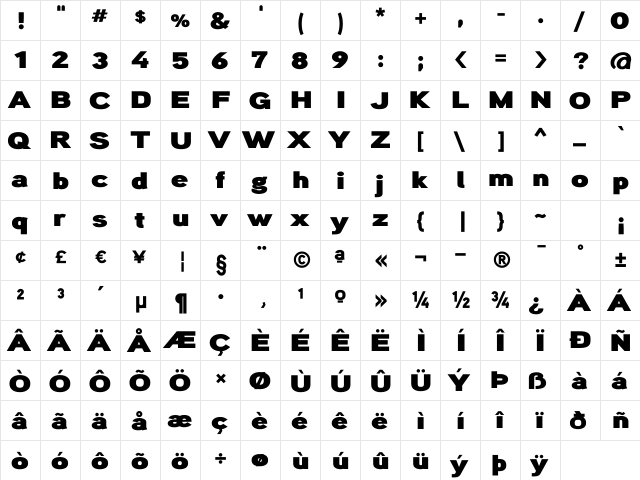
Aaux ProPoster Regular
Design Context for Aaux ProPoster Typeface
Aaux ProPoster takes a measured approach to typography — its balanced proportions and neutral character make it a reliable workhorse for both digital and print work.